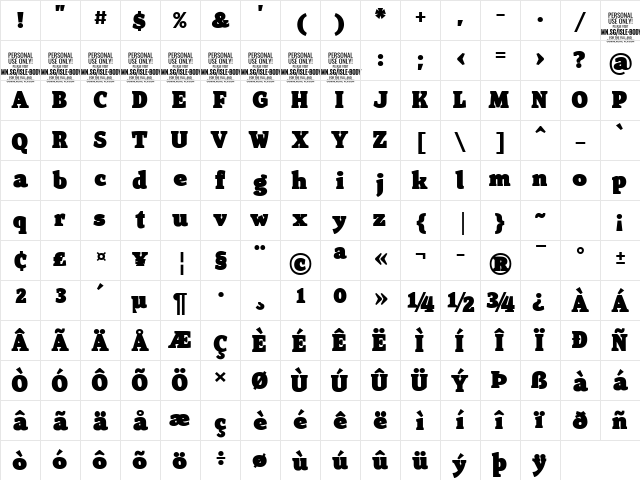
Isle Body PERSONAL USE Black
Foundry: Mans Greback
Designer: Mans Greback
Design Context for Isle Body PERSONAL USE
Isle Body PERSONAL USE is a composed and adaptable typeface that performs quietly and consistently across a wide range of design contexts.